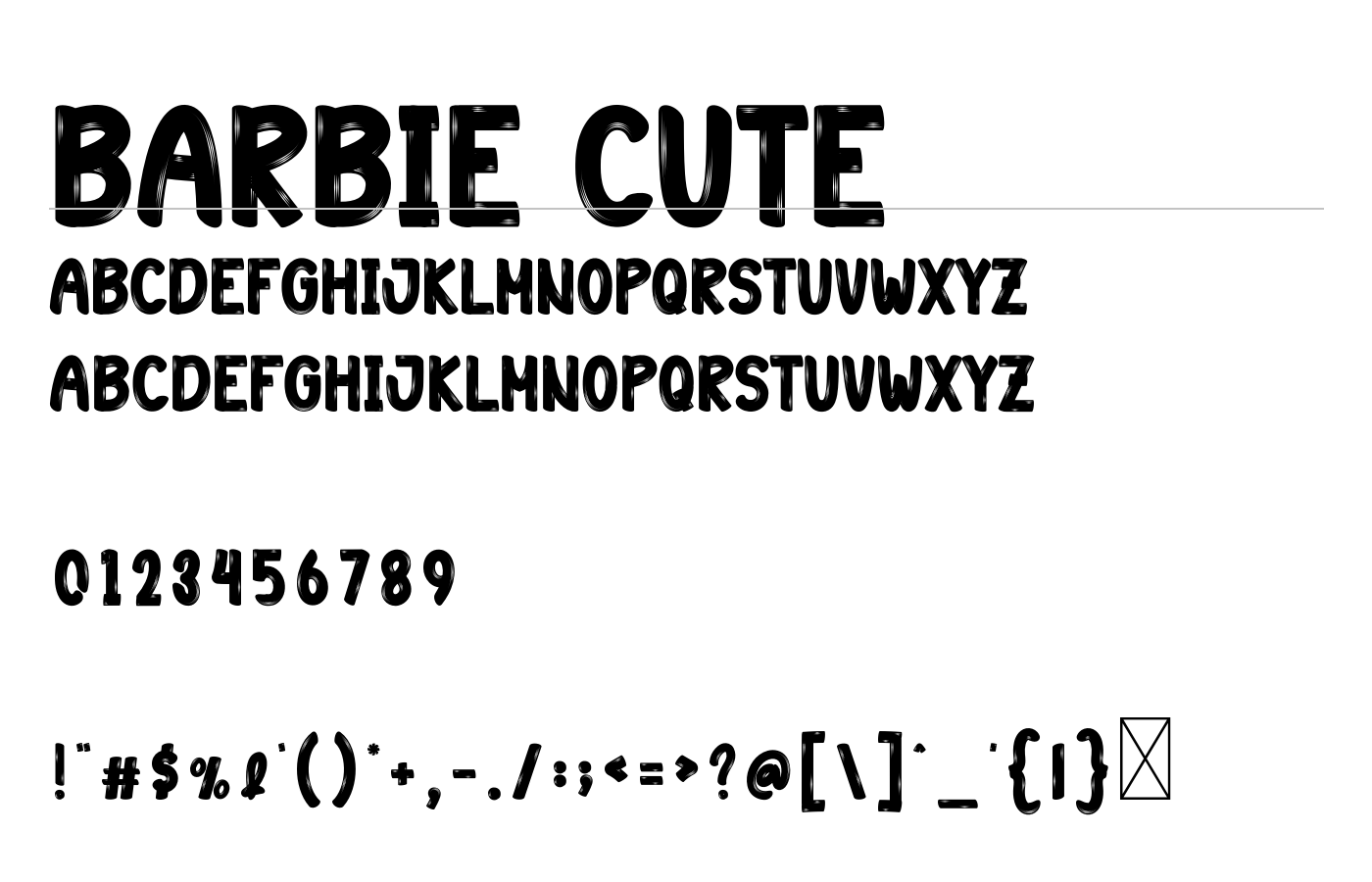
Barbie Cute Font is a playful, bold sans serif typeface with a hand-drawn feel, featuring thick strokes and slightly uneven shapes that add charm and personality. Its rounded, organic letterforms and casual style make it perfect for fun, youthful branding, children’s products, and creative projects that want to convey friendliness and whimsy. This font works best in headlines, logos, and packaging where a lively and informal vibe is desired.
Barbie Cute Font
About Barbie Cute Font